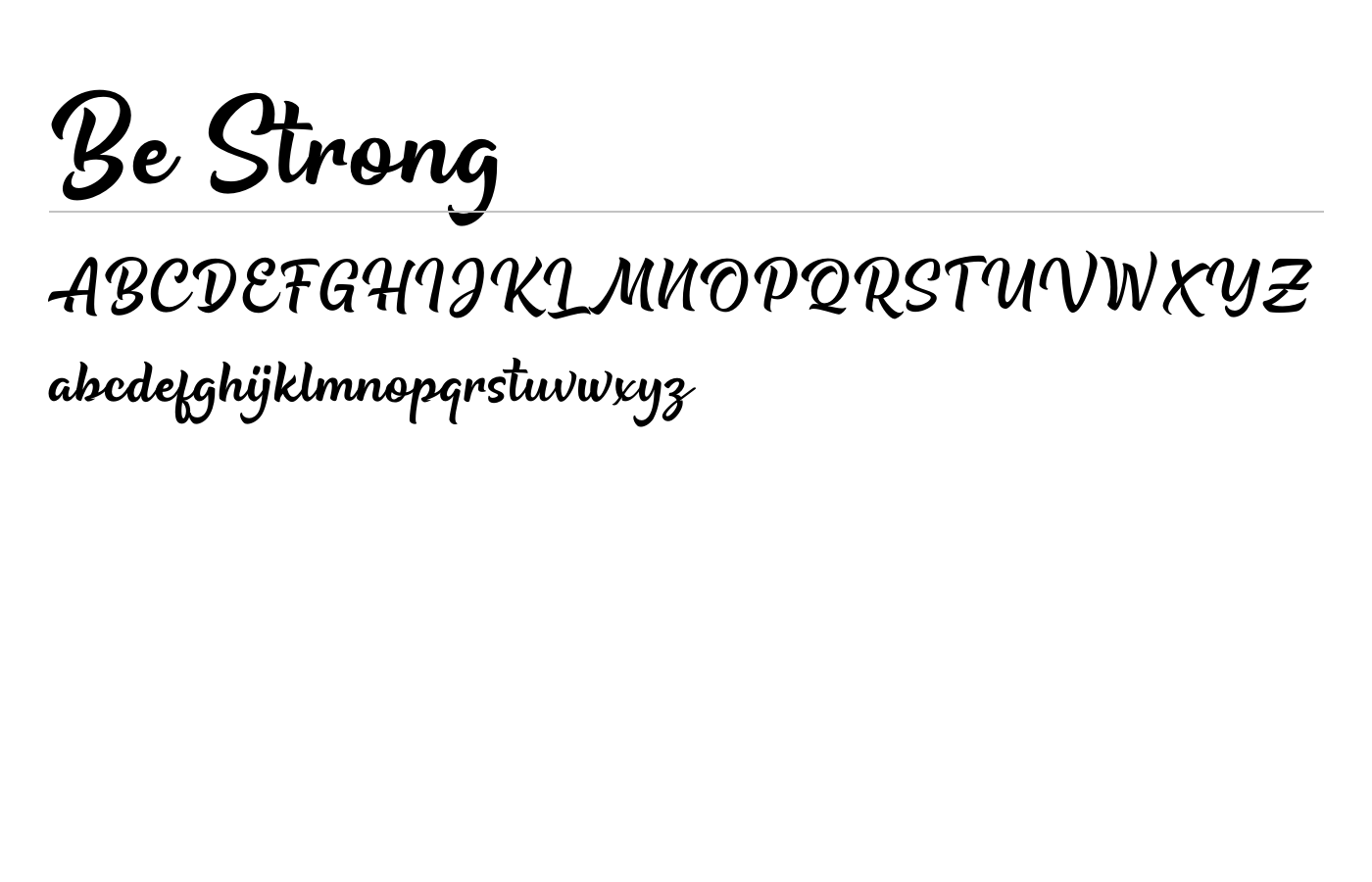
Be Strong is a lively script font with smooth, flowing strokes that convey warmth and friendliness. Its medium weight and balanced contrast create a clear, legible style perfect for invitations, branding, and logos that seek a personal, approachable feel. This font works well in designs that want to express energy and creativity with an elegant yet casual touch.
Be Strong Font